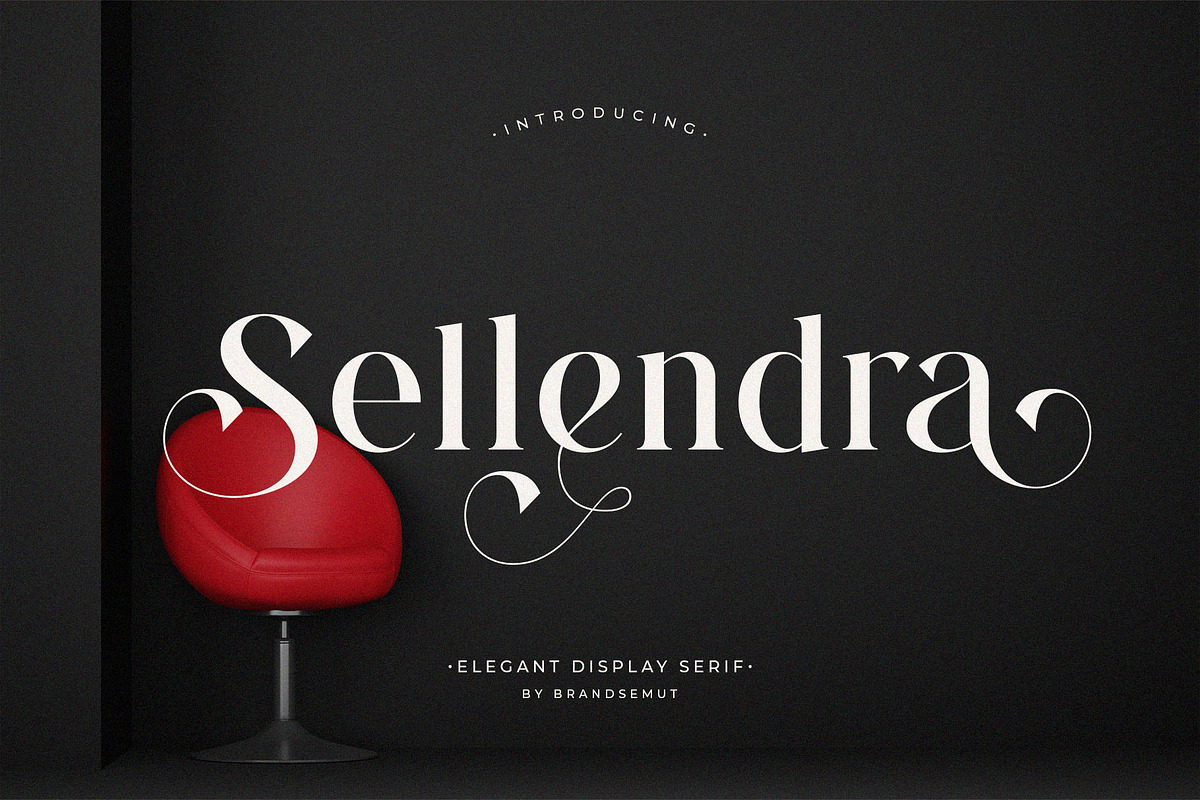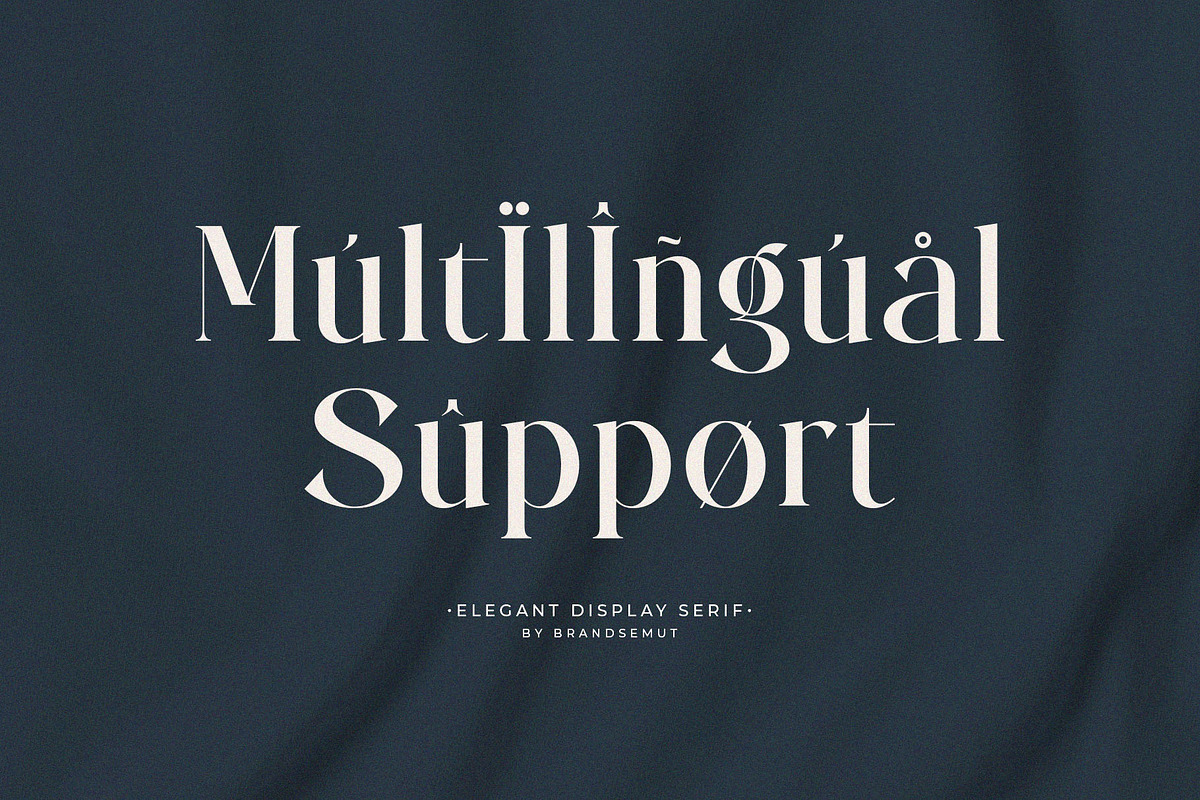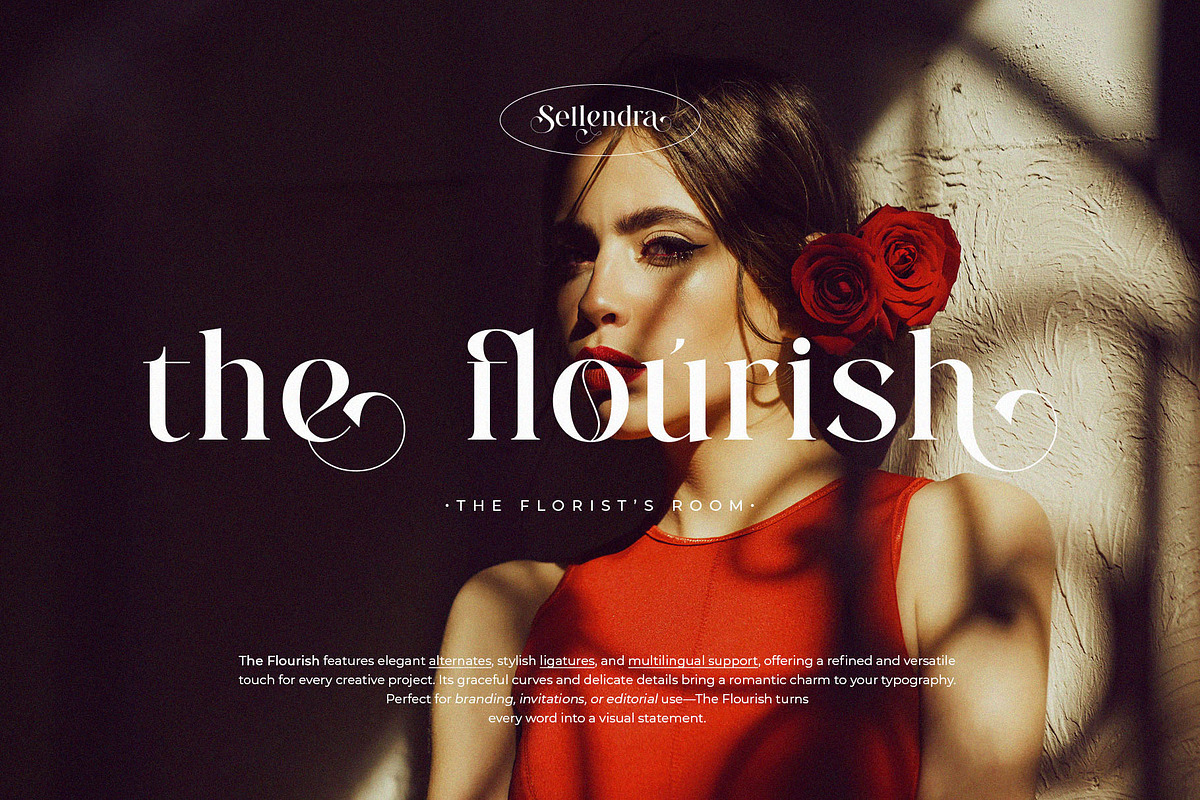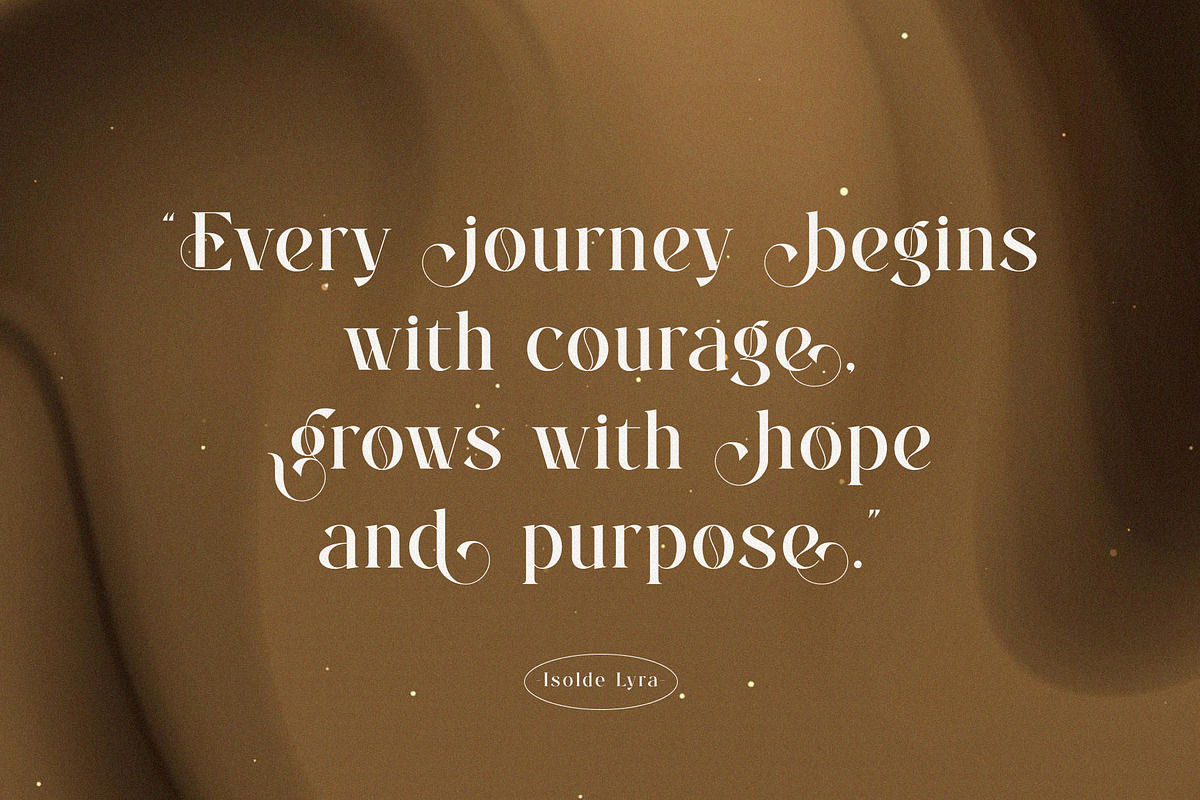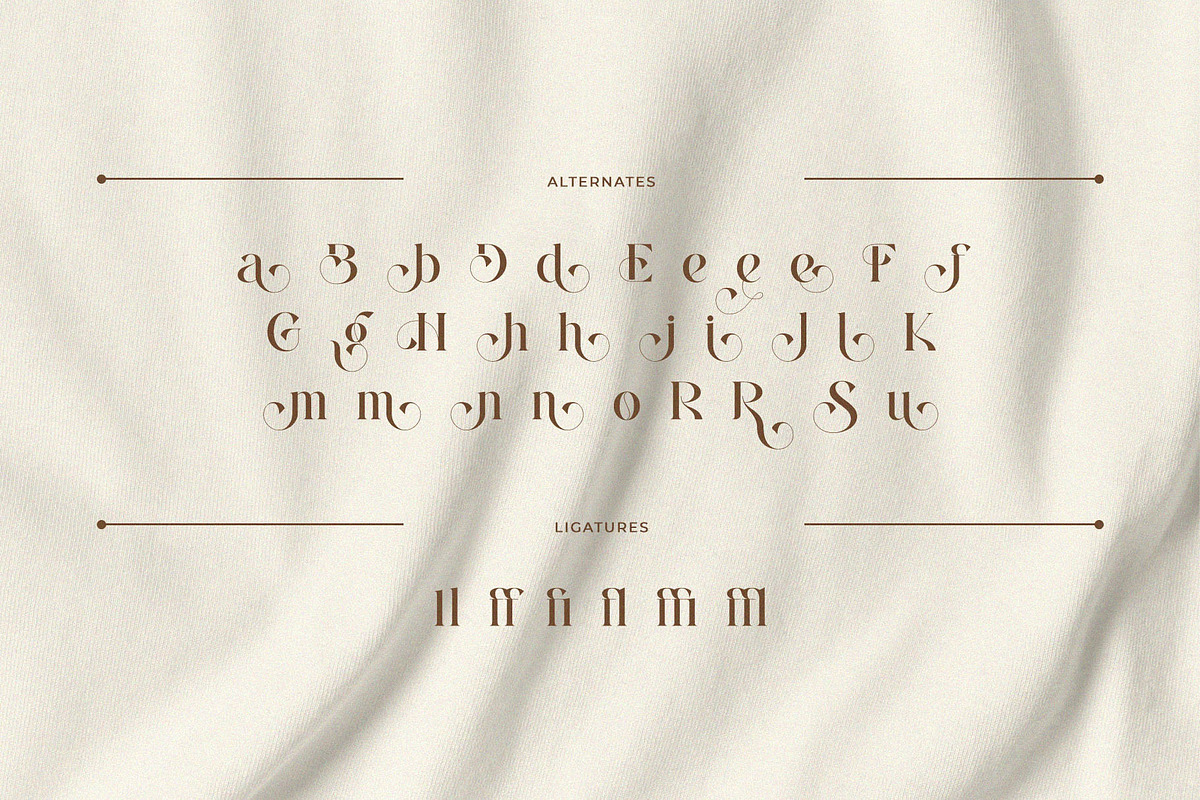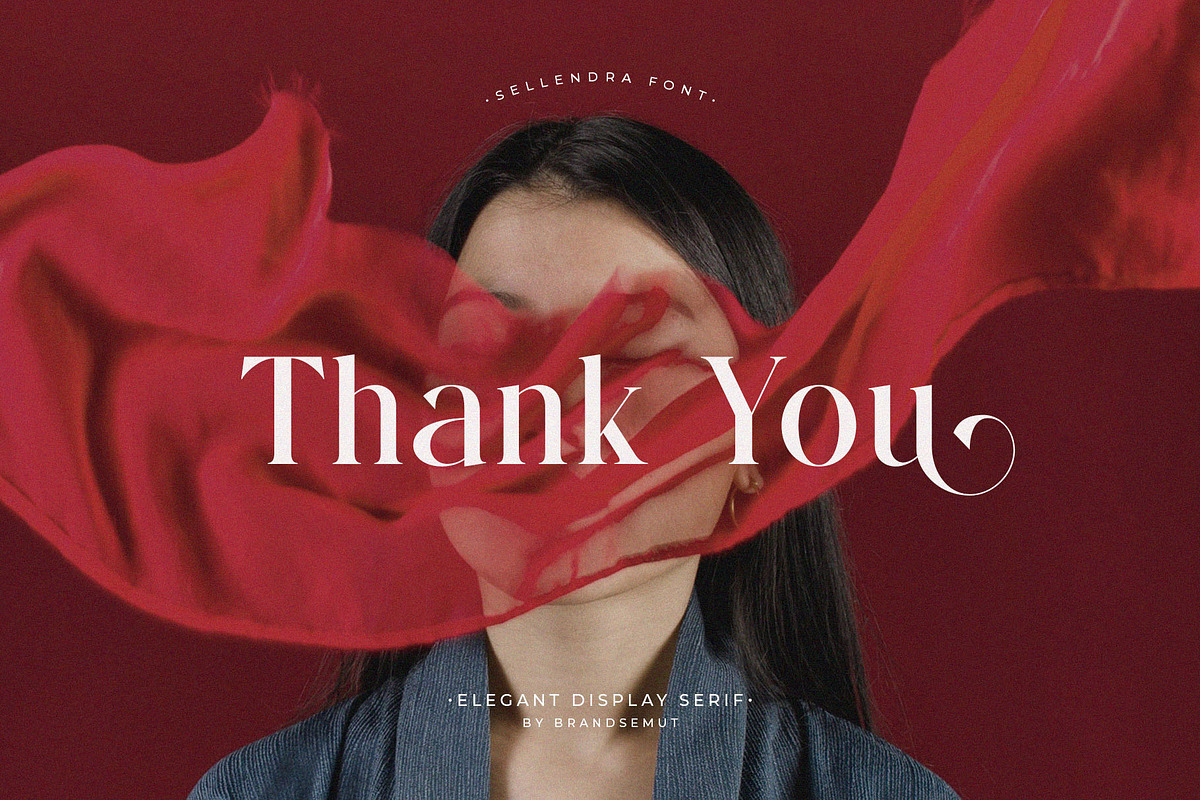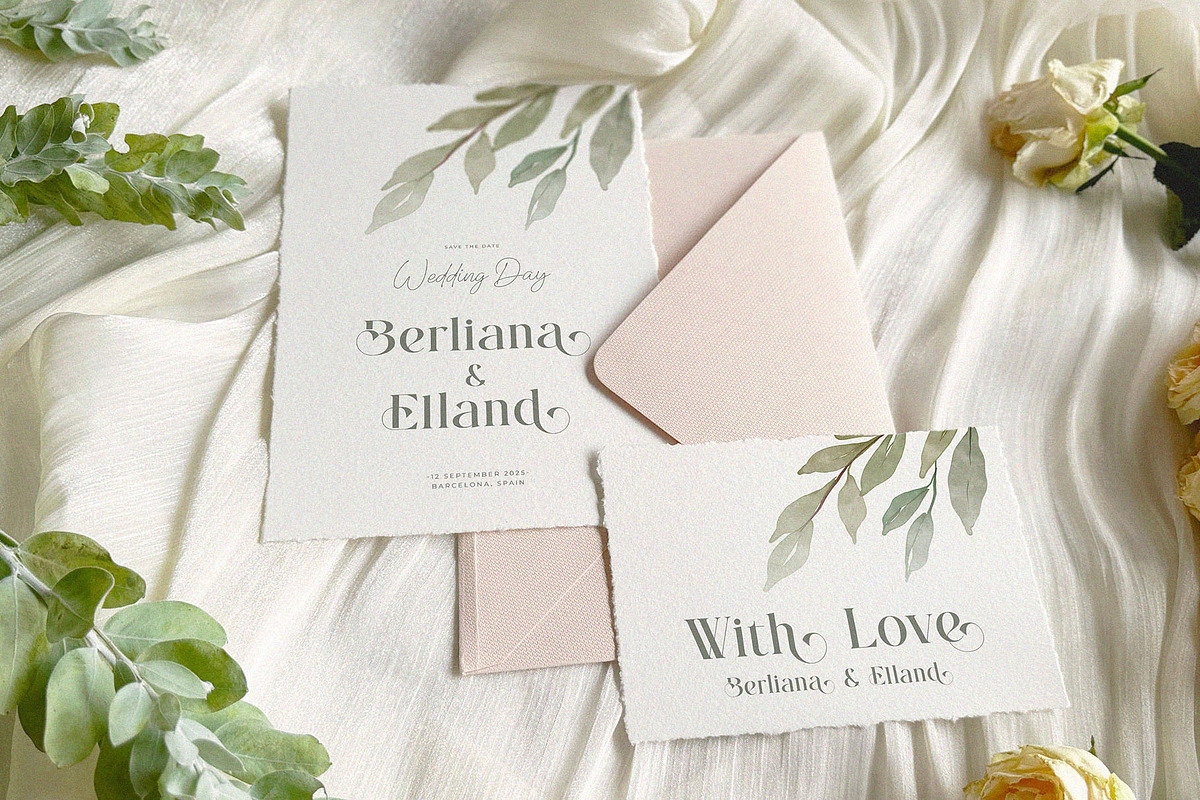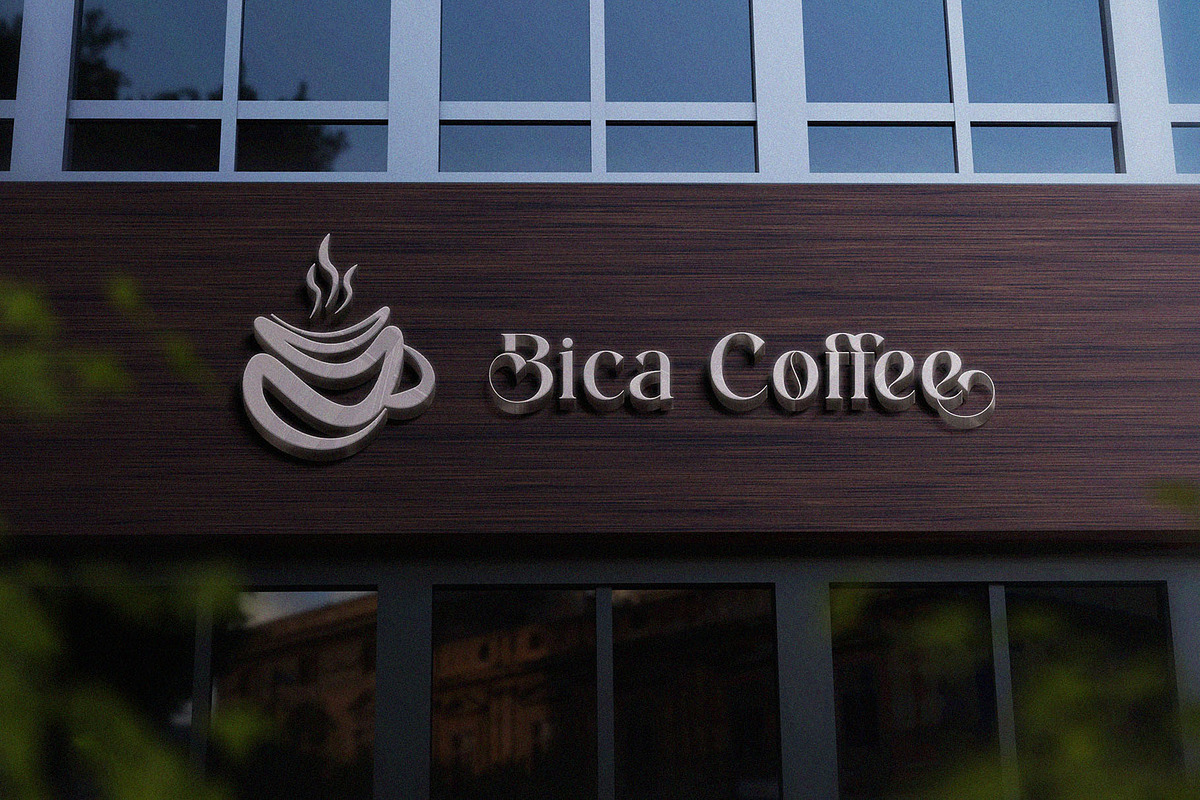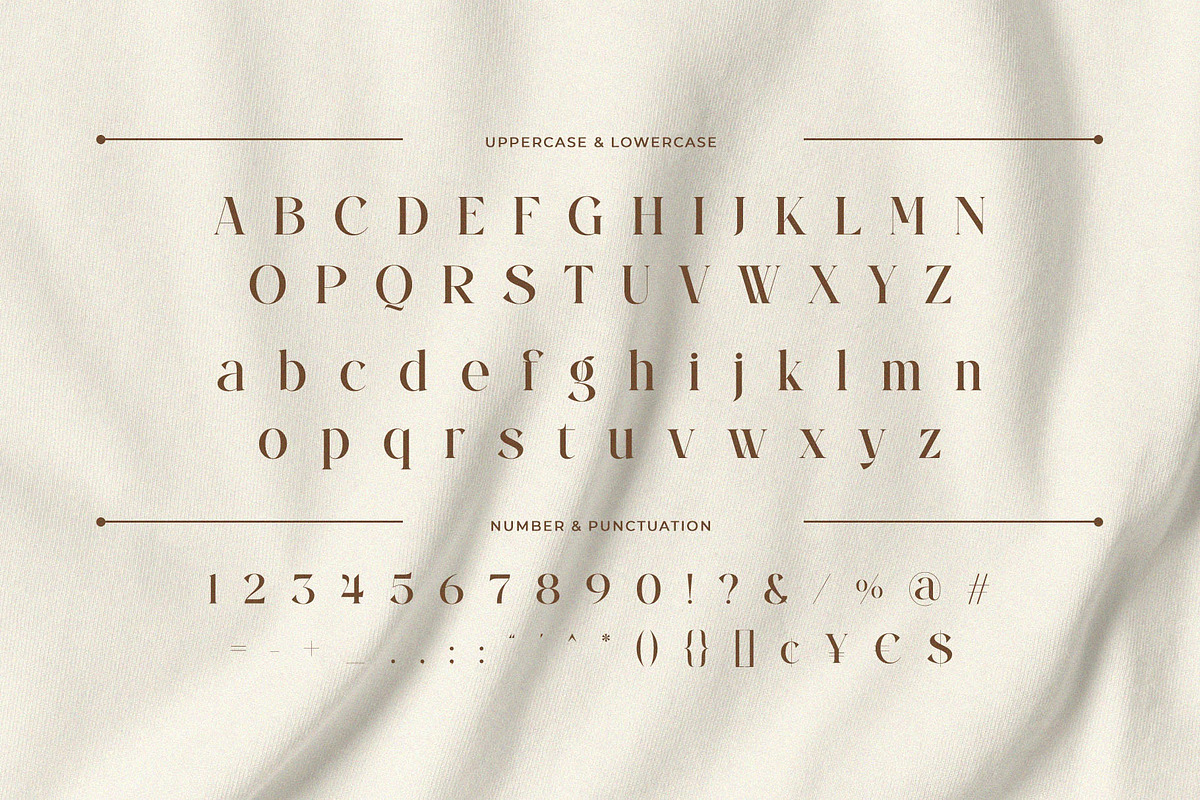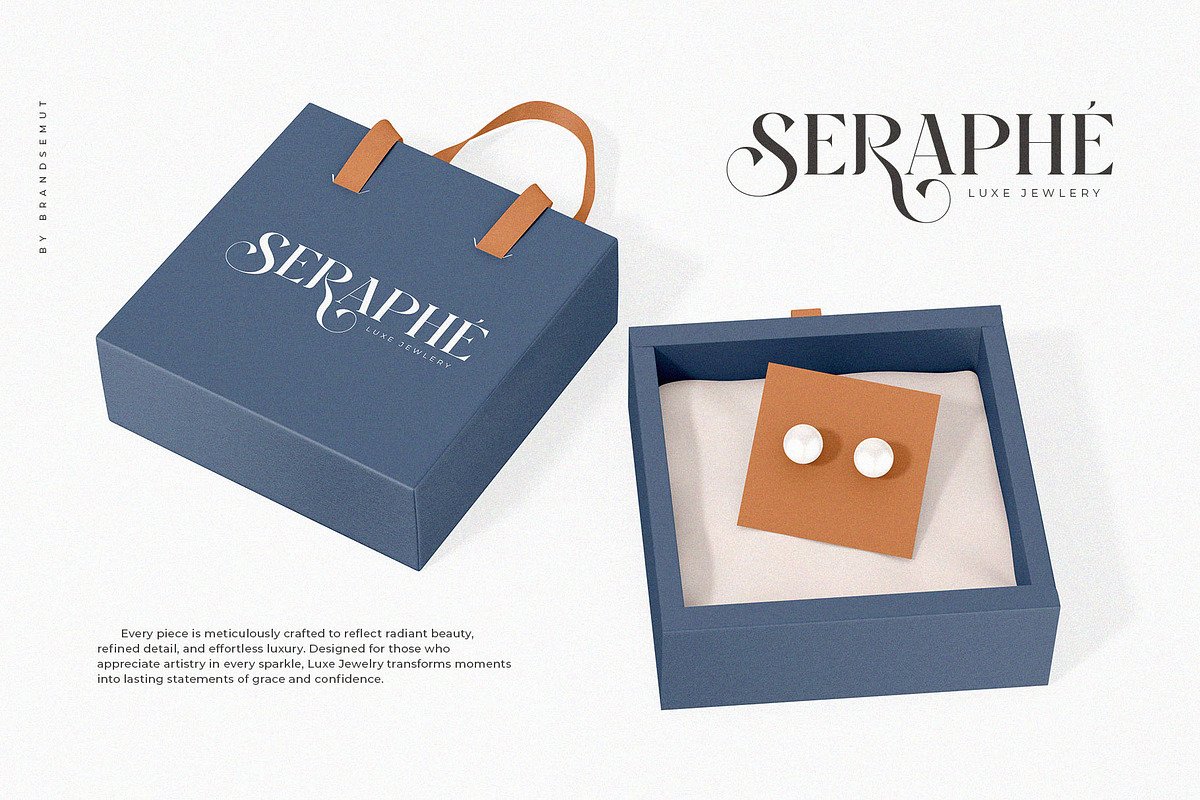
Sellendra – Elegant Display Serif
Sellendra – Elegant Display Serif Font with Uppercase & Lowercase, Swashes & Ligatures for Luxury Branding
Sellendra is a stunning elegant display serif font designed for luxurious, creative, and timeless projects. Featuring beautifully crafted uppercase and lowercase characters, along with expressive swashes and ligatures, Sellendra is perfect for branding, editorial titles, wedding stationery, product packaging, and artistic logos that demand attention and sophistication.
Its high contrast strokes, stylish curves, and flowing terminals make Sellendra a perfect choice for designers seeking to evoke a classic yet modern elegance in their typography.
- Premium brand identity & fashion logos
- Editorial magazine titles & cover designs
- Wedding invitations & stationery
- Luxury packaging & perfume labels
- Social media graphics with an elegant tone
- Swashes & stylistic ligatures
- High contrast elegant serif structure
- Optimized for both print and digital use
Bring grace, class, and character to your design work with Sellendra — a serif typeface made to impress and inspire.